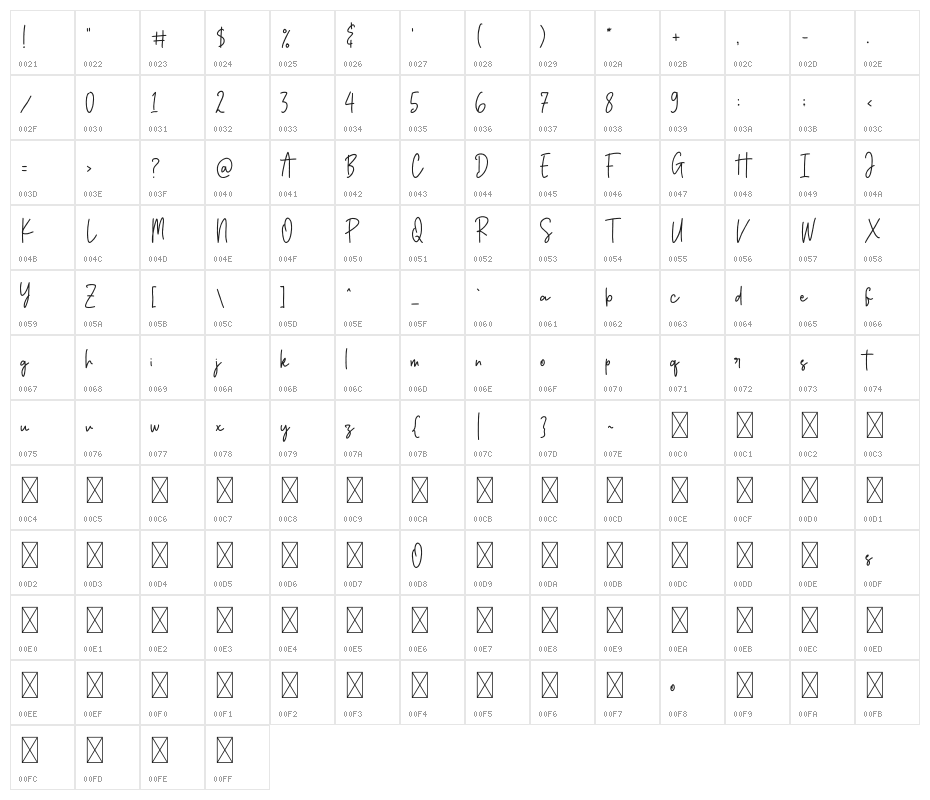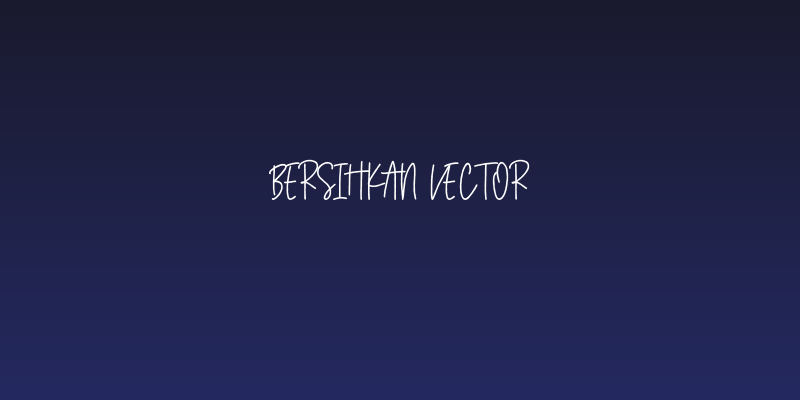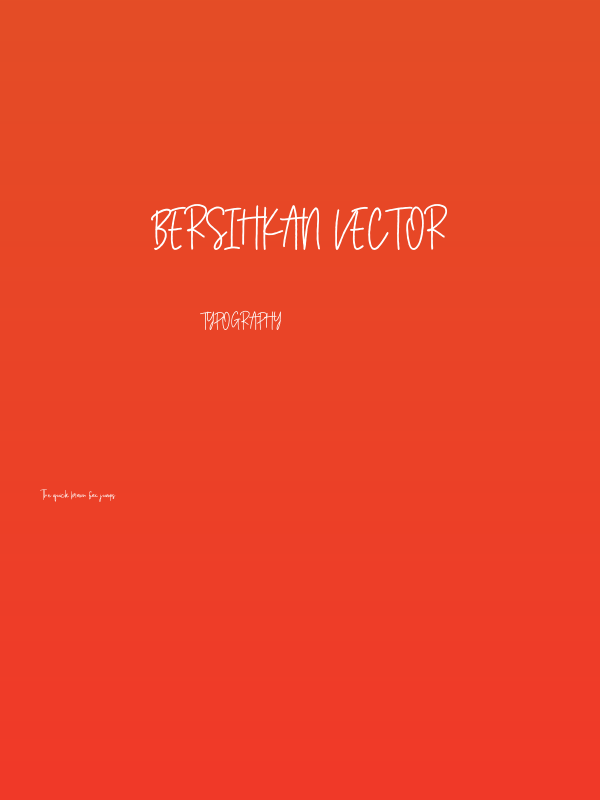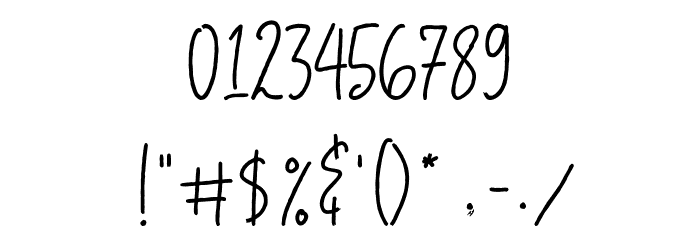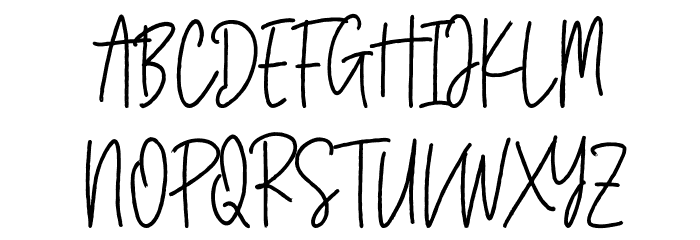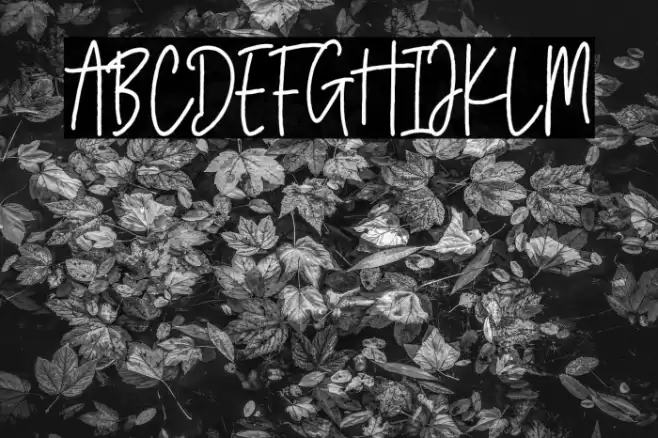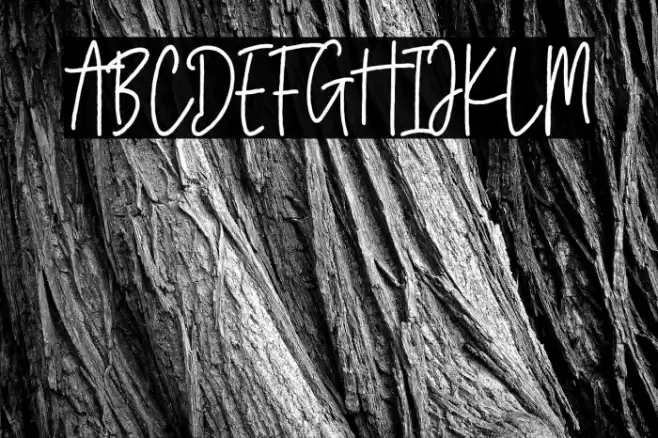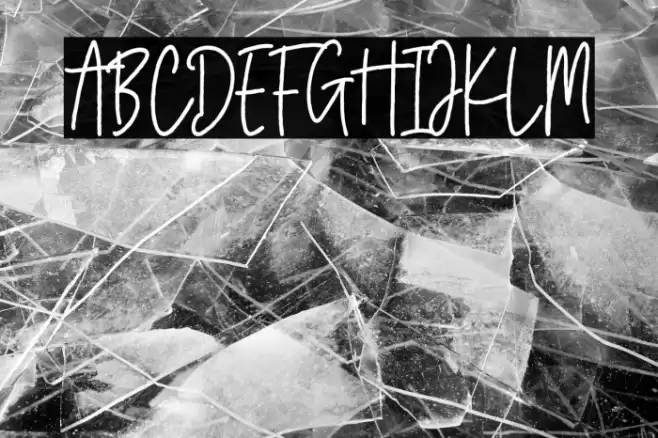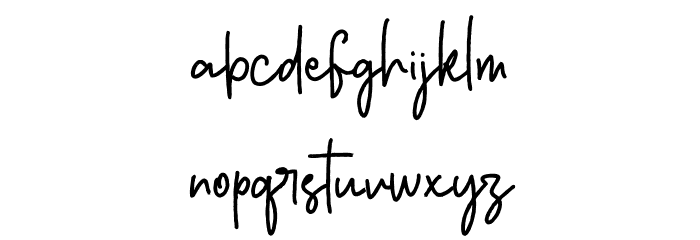
Bersihkan Vector Font
Bersihkan Vector Description
This font exhibits a lively and casual handwritten style, characterized by its playful and slightly irregular strokes. The letters are tall and narrow, with a consistent flow that mimics natural handwriting. The uppercase characters are bold and expressive, while the lowercase letters maintain a smooth and connected appearance. Numbers and special characters follow the same handwritten aesthetic, adding to the font's cohesive look. This font's informal and friendly nature makes it suitable for projects that require a personal touch.
| Use Case | Logos, Headlines, Informal Text |
| Proposed Projects | Ideal for greeting cards, invitations, personal blogs, and creative branding projects. |